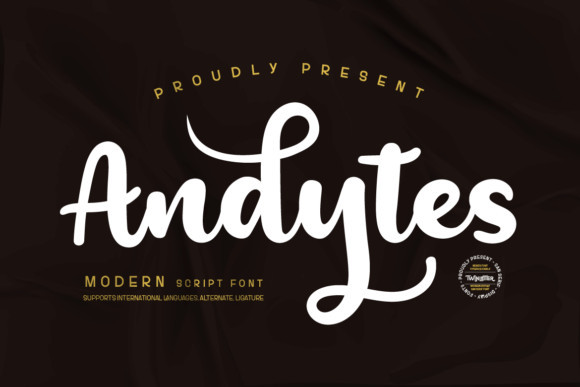
Andytes Font
Andytes is a gorgeous and bold handwritten font, crafted to give your headlines and logotype projects a stylish touch. It reads as strong, confident, and dynamic and can add tons of nostalgic character to your designs. This font is PUA encoded which means you can access all of the glyphs and swashes with ease!